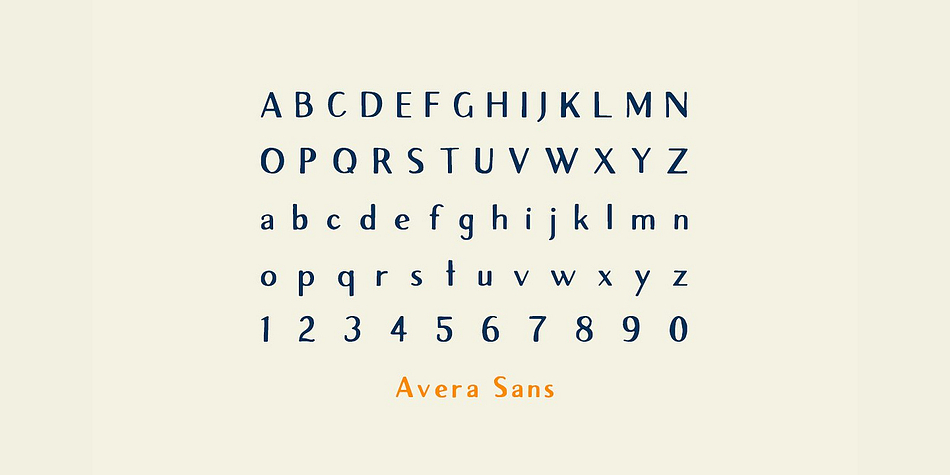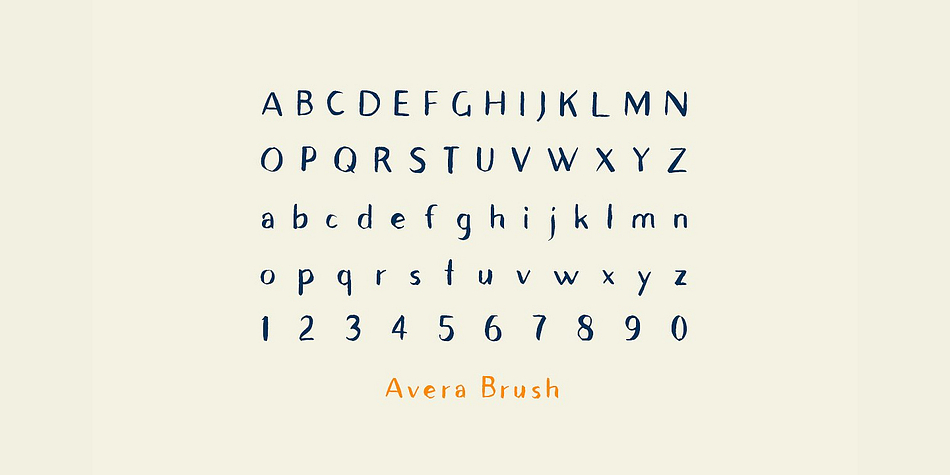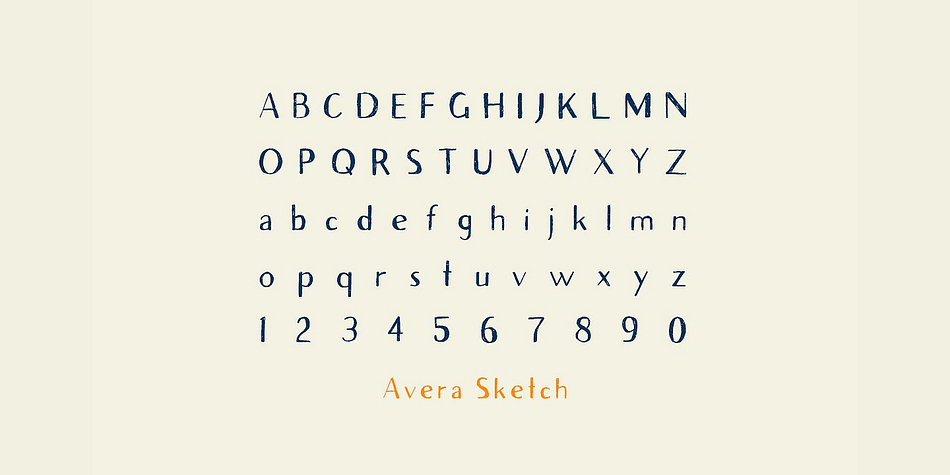
Avera Sans is a hand drawn font family. This typeface has five styles and was published by Tom Chalky.
A simple and effective handcrafted Sans Serif font. With complementary Brush and Sketch styles included!
Introducing the new and improved Avera Sans font family. Within this handcrafted family, youll find light, regular and bold weights with an extended glyph range (latin 1). Avera Sans is a great display font that looks good big or small and is perfect for poster design, logo design, apparel design, etc.
Brush and Sketch alternatives are also available! These two extra styles were entirely hand drawn and hold dearly onto their authentic qualities. A great couple of additions to the family!